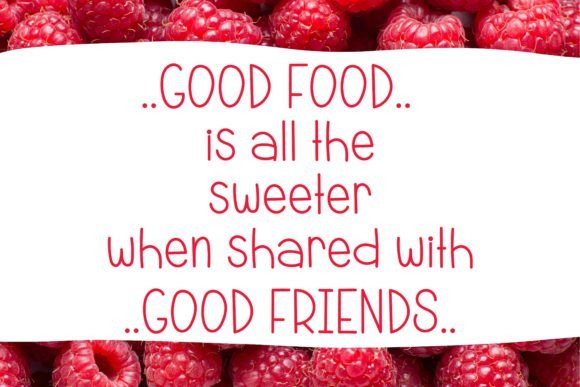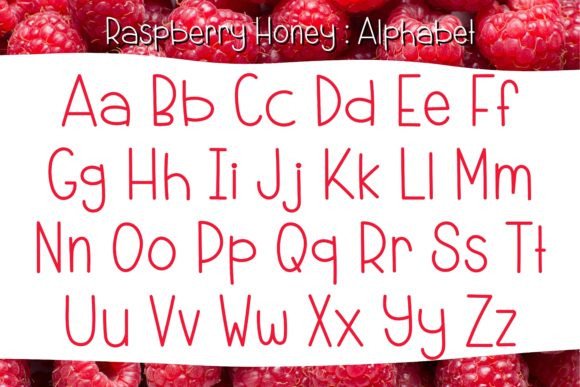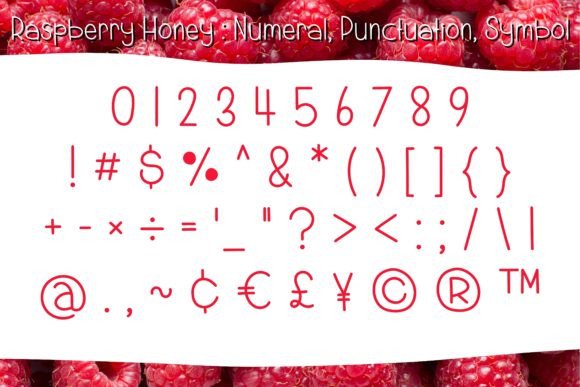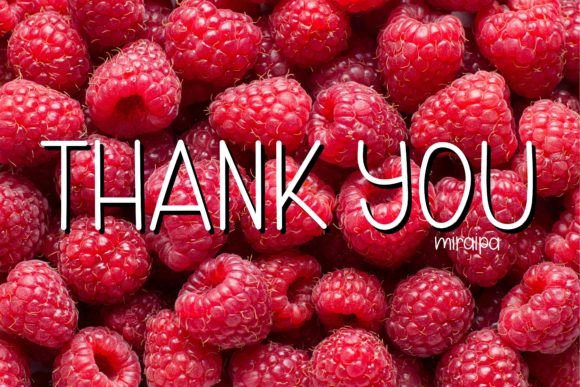
Introduction to Raspberry Honey Font Font
Fonts play a crucial role in design, and the Raspberry Honey Font font is a typeface that brings both character and versatility to any project. Whether you’re working on a branding project, a website, or a print design, the Raspberry Honey Font font offers a unique style that can elevate your work.
Raspberry Honey is a sans serif font designed in a friendly and lovely style.
It would be awesome for your diary planner and journal It is also great for projects such as back-to-school, wedding, party decoration, invitations, festivals, posters, blogs, clothing, child-related designs, greeting cards, social media posts, or anything that needs a friendly touch.
Key Features of Raspberry Honey Font Font
Why Choose Raspberry Honey Font Font?
The Raspberry Honey Font font is more than just a typeface – it’s a design tool that helps you communicate your message with style and clarity. Its unique character set and versatile design make it suitable for a wide range of applications, from elegant invitations to bold headlines.
With its carefully crafted letterforms and balanced proportions, the Raspberry Honey Font font ensures readability and visual appeal across all mediums.
What makes Raspberry Honey Font font special?
The Raspberry Honey Font font stands out with its unique design, exceptional readability, and versatility across various design applications.